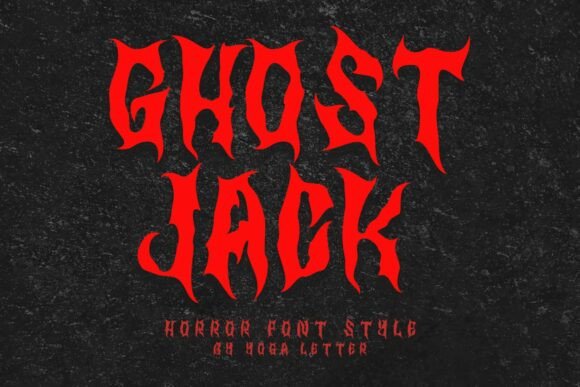
Ghost Jack: A Unique Horror Display Font for Creative Projects
When it comes to typography, the right font can make a significant difference in how a message is perceived. For designers working on horror-themed or spooky content, finding the perfect typeface that captures the eerie essence of their project is crucial. Ghost Jack is one such font that stands out with its distinctive design and versatility across multiple creative applications.
What Is Ghost Jack?
Ghost Jack is a display font specifically crafted to evoke a sense of fear, mystery, and spookiness. It features a mix of uppercase and lowercase letters, making it more flexible than many traditional horror fonts that rely solely on all caps. The font also includes ligatures, numerals, punctuation marks, and multilingual support, allowing it to be used in a wide range of contexts beyond just Halloween decorations or horror movie posters.
Its skeletal and ghostly aesthetic gives it an unsettling charm, while the inclusion of both upper and lower cases adds a level of readability not always found in horror fonts. This makes Ghost Jack suitable for short bursts of text as well as longer passages when needed.
Why Consider Ghost Jack for Your Project?
If you're looking to create something that screams "spooky," Ghost Jack could be an excellent choice. Here are some reasons why users might consider this font:
- Unique Visual Appeal: The font's jagged, haunted style sets it apart from more common horror typefaces, offering a fresh look that still fits within the genre.
- Versatility: Designed with multiple uses in mind, Ghost Jack works well for Halloween events, horror movies, Christmas themes (like haunted holiday stories), banners, posters, print materials, branding, stickers, logos, and digital art tools like Procreate.
- Multilingual Support: This feature allows the font to be used in international projects without losing its intended effect.
- Compatibility with Design Tools: Its adaptability extends to sublimation printing and other graphic design software, giving creators more freedom in how they apply it.
Benefits and Tradeoffs of Using Ghost Jack
Using Ghost Jack can bring several benefits to your design work. First and foremost, it helps establish a strong visual tone quickly. Whether you're creating a logo for a horror film or designing promotional material for a Halloween party, the font’s character instantly conveys the desired mood.
Another benefit is its ability to stand out. In a crowded market of generic fonts, Ghost Jack offers a unique identity that can help your brand or project gain attention. Its combination of readability and creepiness is particularly valuable for those who want to maintain legibility without sacrificing atmosphere.
However, there are tradeoffs to consider. Display fonts like Ghost Jack are typically best suited for headlines, titles, or short phrases rather than large blocks of body text. Their intricate details can become overwhelming or difficult to read at smaller sizes. Additionally, because of its dramatic style, Ghost Jack may not align with every design aesthetic—especially those that require a more subtle or professional look.
Where Ghost Jack Excels
Ghost Jack shines in scenarios where bold, attention-grabbing typography is essential. It’s particularly effective in the following situations:
- Halloween and Horror Themes: From invitations to event posters, Ghost Jack delivers a classic yet modern haunted vibe.
- Movie Titles and Trailers: If you're working on a horror movie title or a teaser poster, this font can add a layer of intensity that grabs viewers’ attention.
- Print and Merchandise: The font works well on t-shirts, mugs, and other printed goods, especially when paired with dark color schemes and ghostly imagery.
- Branding for Niche Markets: Businesses targeting audiences interested in gothic, supernatural, or alternative lifestyles can use Ghost Jack to build a cohesive brand image.
- Digital Art and Sublimation: With its high contrast and detailed structure, Ghost Jack is ideal for digital platforms and sublimation printing where visual impact is key.
Situations Where Alternatives Might Be Better
While Ghost Jack is a powerful tool for certain types of projects, it may not be the best fit in all cases. Here are a few instances where you might want to explore other options:
- Professional Documents: If you're designing a report, business card, or any formal document, a horror-style font like Ghost Jack would likely be inappropriate and unprofessional.
- Long-Form Content: As a display font, Ghost Jack isn’t optimized for long paragraphs or body text. Users should stick to simpler, more readable fonts for extended reading.
- Minimalist or Modern Designs: The font's ornate and spooky characteristics might clash with minimalist or sleek design styles, making it less effective in these contexts.
- Accessibility Concerns: Some users may find the font challenging to read due to its stylized characters, so it’s important to ensure that it doesn’t hinder the accessibility of your message.
In the end, the decision to use Ghost Jack depends on your creative vision and the message you want to convey. By understanding its capabilities and limitations, you can make an informed choice that enhances your project rather than detracts from it.